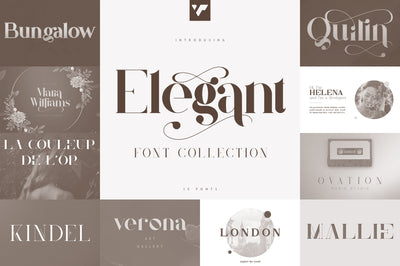
Elegant Font Collection - 15 fonts
Introducing Elegant Font Collection - 15 fonts in 4 typefaces
The Elegant Font Collection is elegant, vintage collection loaded with 15 fonts and multilingual support. They are very versatile fonts that works great in large and small sizes.
This collection is perfect for branding projects, home-ware designs, product packaging, magazine headers - or simply as a stylish text overlay to any background image.
1. Bungalow Typeface - 9 fonts
• Uppercase, lowercase, numeral, punctuation & Symbol
• Serif - Light, Regular, Bold
• Display - Light, Regular, Bold
• Headline - Light, Regular, Bold
• Alternate glyphs
• Ligatures
• Multilingual support
• 20 Floral vector illustrations
1. Quilin Serif - latin and cyrillic
• Uppercase, lowercase, numeral, punctuation & Symbol
• Alternate glyphs
• Ligatures
• Multilingual support
• Cyrillic support
1. Kindel - Serif Typeface | 4 styles
• Uppercase, lowercase, numeral, punctuation & Symbol
• Regular
• Style one
• Style two
• Style three
• Ligature glyphs
• Multilingual support
1. Mallie - Fusion font
• Uppercase, numeral, punctuation & Symbol
• Regular
• Multilingual support